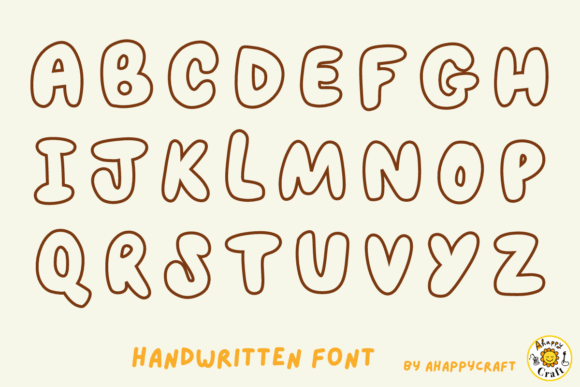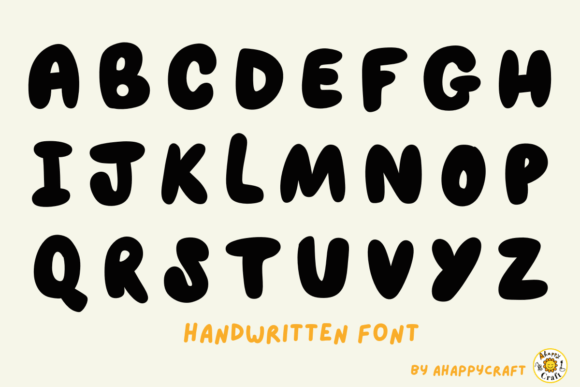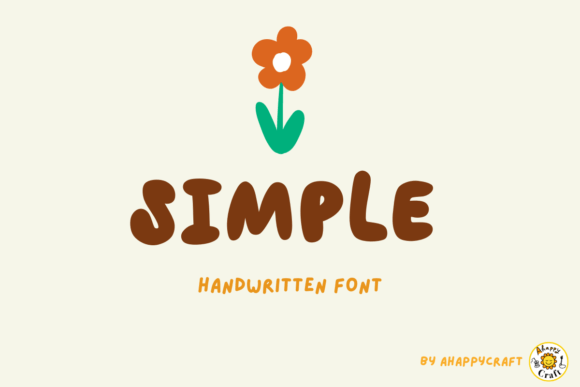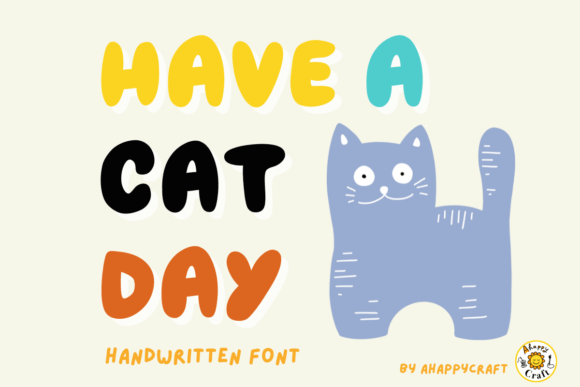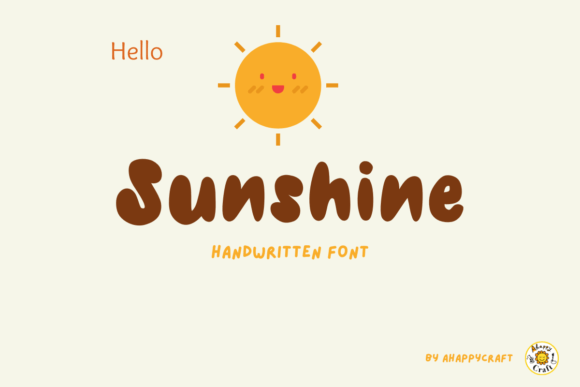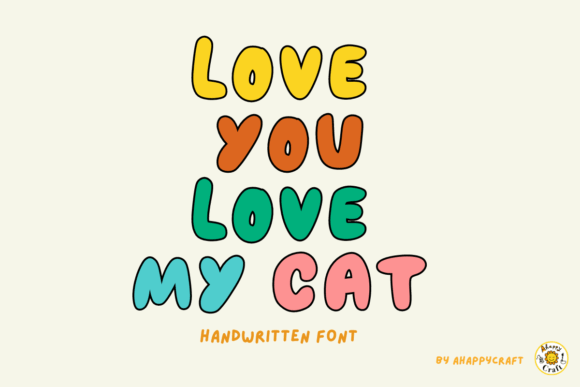
Casual Cat Font: The Purrfect Addition to Your Design Collection
Are you tired of using the same old fonts in your designs? Look no further than Casual Cat Font, a sweet and friendly handwritten display font that’s sure to bring a touch of whimsy to your projects. With its natural and unique style, Casual Cat Font is incredibly versatile and can be used in a wide range of designs, from playful crafts to sophisticated branding materials.
The Characteristics of Casual Cat Font
Casual Cat Font is a handwritten display font that exudes warmth and friendliness. Its unique style is characterized by:
- Natural and fluid lines: The font features smooth, flowing lines that give it a organic and effortless feel.
- Unique letterforms: Each letter has its own distinct personality, making the font perfect for designs that require a personal touch.
- High legibility: Despite its playful nature, Casual Cat Font remains highly legible, even at smaller sizes.
What Makes Casual Cat Font So Versatile?
The versatility of Casual Cat Font lies in its ability to adapt to different design styles and themes. Here are just a few examples of how you can use this font in your designs:
- Crafting and DIY projects: Add a personal touch to your crafting and DIY projects, such as handmade cards, gift tags, and scrapbooking pages.
- Branding and packaging: Use Casual Cat Font to create unique and eye-catching branding materials, such as logos, labels, and packaging.
- Digital designs: Incorporate the font into your digital designs, including social media graphics, blog headers, and website elements.
- Stationery and invitations: Create beautiful and personalized stationery, invitations, and greeting cards with Casual Cat Font.
Tips for Using Casual Cat Font Effectively
To get the most out of Casual Cat Font, follow these tips:
- Pair it with complementary fonts: Combine Casual Cat Font with other fonts to create visual interest and hierarchy in your designs.
- Experiment with colors and textures: Add depth and personality to your designs by experimenting with different colors and textures.
- Use it sparingly: While Casual Cat Font is incredibly versatile, it’s best to use it sparingly to avoid overwhelming your designs.
Casual Cat Font is a sweet and friendly handwritten display font that’s perfect for designers and crafters looking to add a touch of whimsy to their projects. With its natural and unique style, high legibility, and versatility, Casual Cat Font is sure to become a staple in your design collection. So why wait? Download Casual Cat Font today and let your imagination run wild!
- Is Casual Cat Font suitable for body text?
- While Casual Cat Font is highly legible, it’s best suited for display text and headings. For body text, consider using a more traditional font.